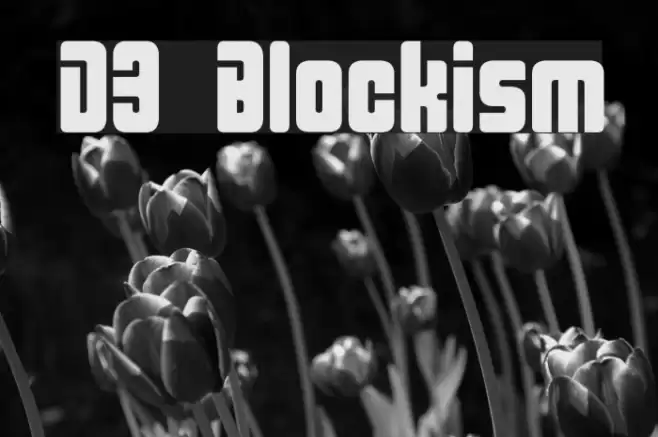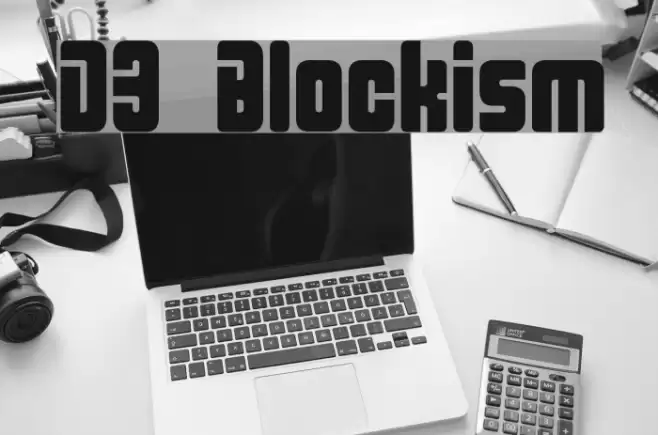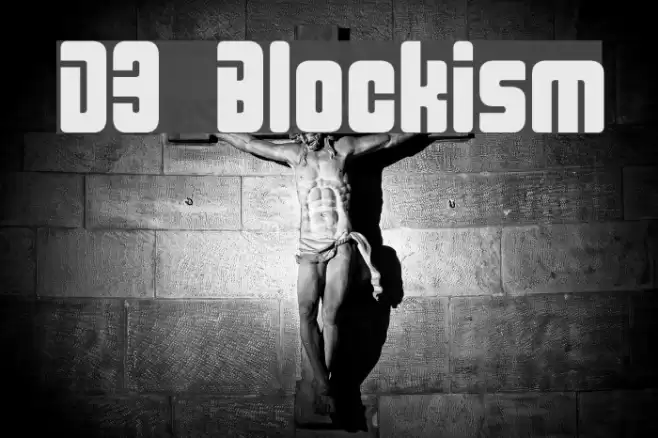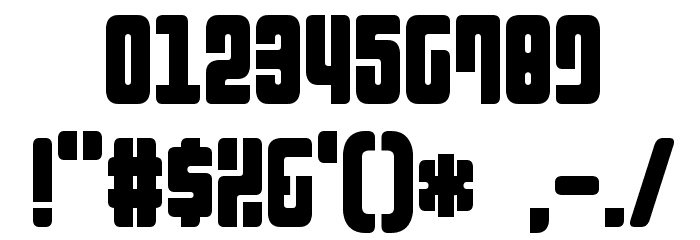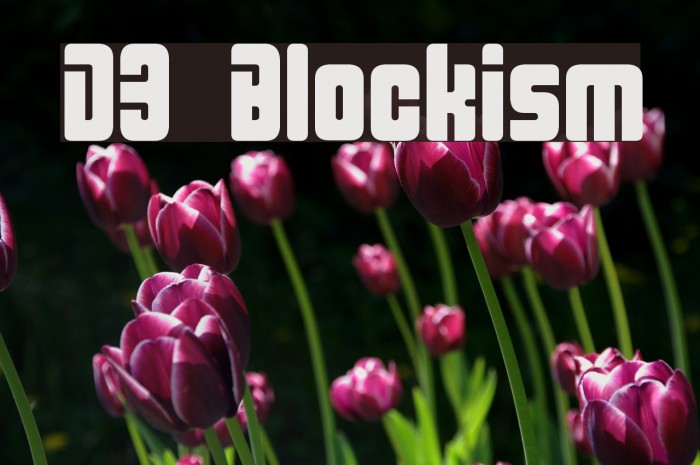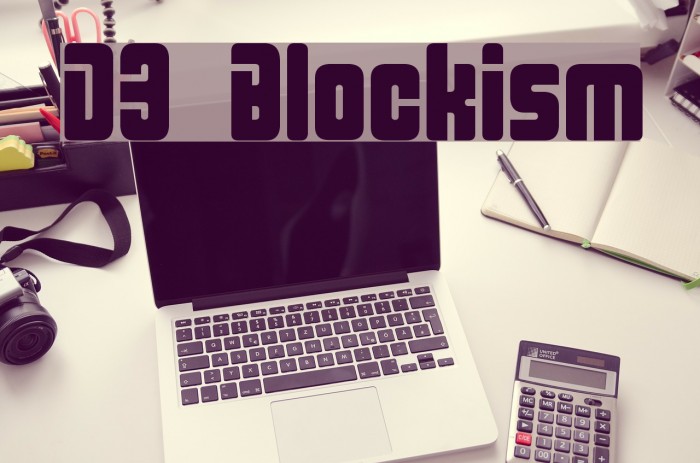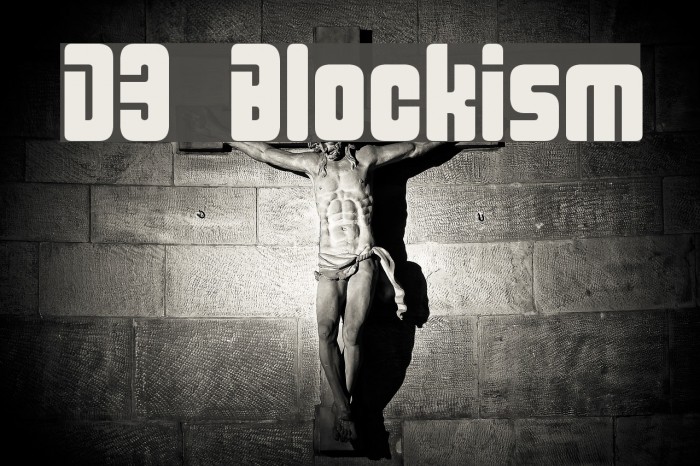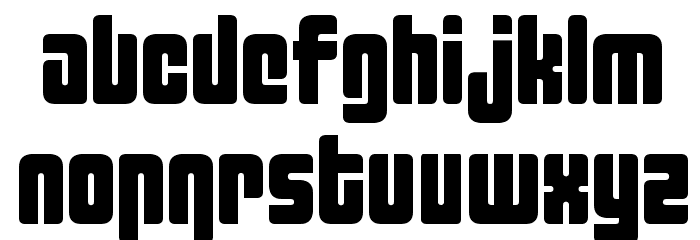
D3 Blockism Font
D3 Blockism Description
This font features a bold, geometric design with a strong emphasis on block-like shapes. The characters are uniformly thick, creating a cohesive and impactful appearance. The uppercase and lowercase letters share a similar width, contributing to a consistent visual flow. The numbers and special characters maintain the same boldness and geometric style, ensuring uniformity across all glyphs. This font's distinct style makes it highly suitable for attention-grabbing designs.
A bold, geometric font with block-like shapes and uniform thickness from Uncategorized fonts.
- Proposed Projects: Ideal for poster designs, branding, headlines, and any project requiring a strong visual impact.